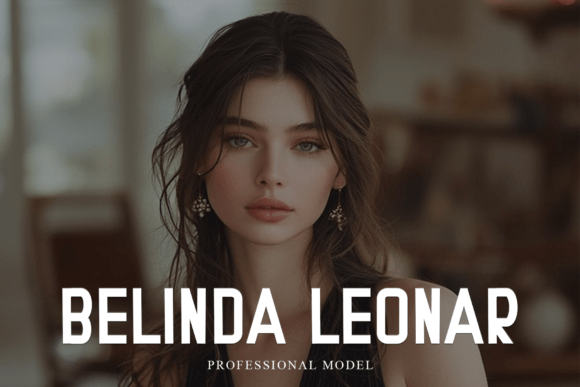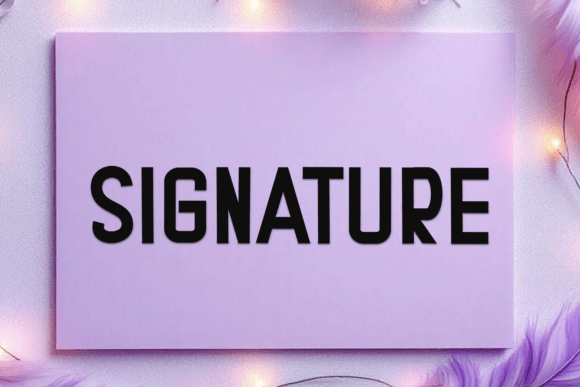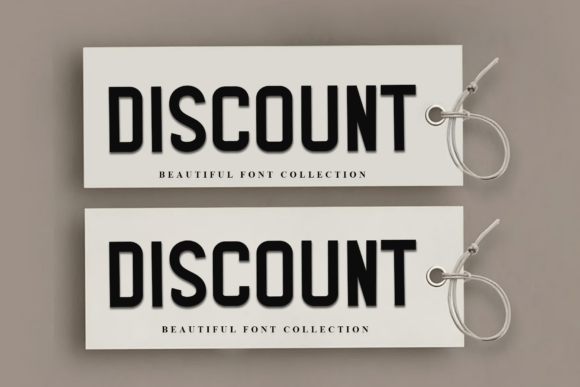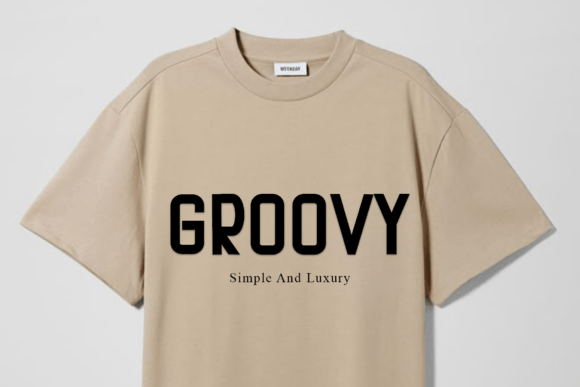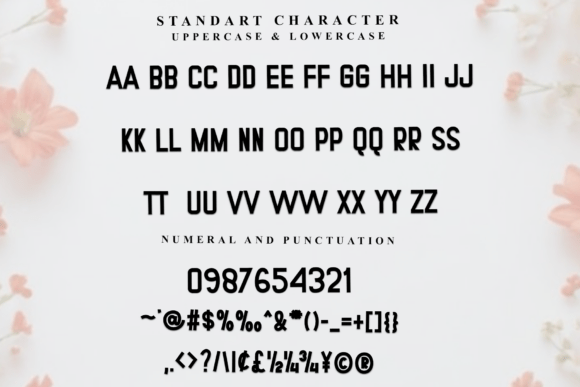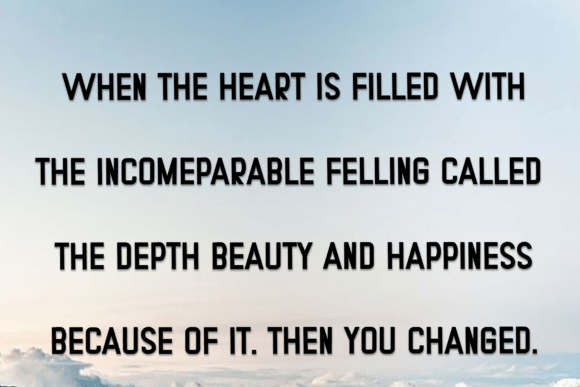
Introduction to Candy Lollipop Font
candy lollipop is a casual and creative font that exudes warmth and friendliness.
Key Features of Candy Lollipop Font
Why Choose Candy Lollipop Font?
Candy Lollipop Font offers exceptional quality and versatility, making it a valuable addition to your design toolkit. Whether you’re creating for personal projects or commercial use, Candy Lollipop Font delivers professional results.